Jun Mincho Development Story 2: “Features of Structure Part 2”
I wrote in the previous article that Jun Mincho kanji is tight in the vertical direction. It is not correct to simply tighten the inside space between strokes to the same direction. Each method of creation is different. I would like to list some examples of this distinctive way of creation and difficult examples from Jun Mincho.
Characters like “日,” and “幽,” etc. become simply long and narrow when created similarly to tight characters in the vertical direction without being aware of the balance with the other characters, size, and silhouettes peculiar to each character.
For “刈,” the difference in the height at the beginning of the brushstroke for “刂” is slightly emphasized. For “斤,” the position of the beginning of the first stroke is brought to the left to add balance to the positional relationship with the horizontal stroke that comes underneath.
For the take-kanmuri of “竺,” the thickness and size from right to left are distinguished to show movement. The image is pushed out slightly to the right. The element of “乃” that comes below “秀” is quite minimized, and the position of horizontal stroke that comes on the top in “告” is lowered to tighten the head part. These are the methods of creation for strengthening and weakening the elements.
The element of dots and left sweep in “並” are slightly short, being conscious of the speed of rapidly drawing a line.
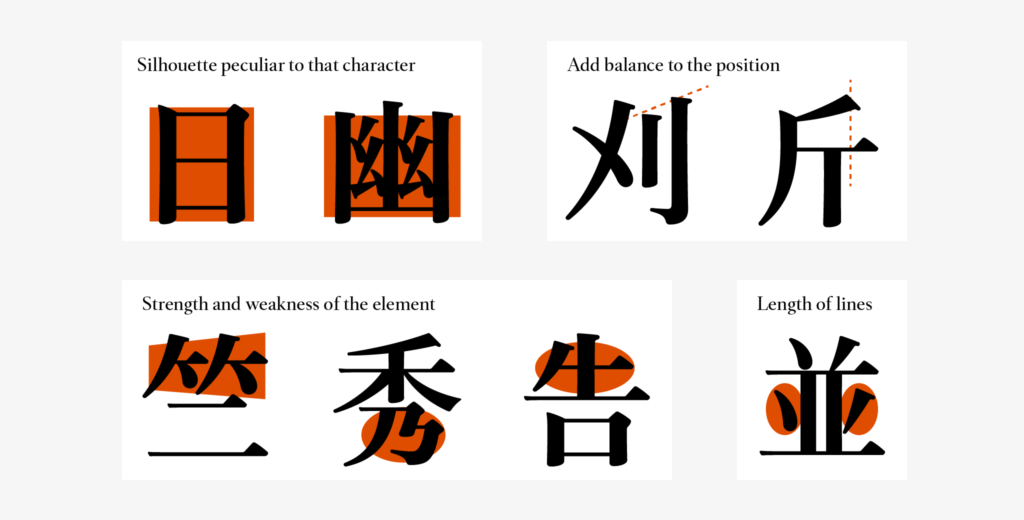
There is no correct answer in the method of creation, and the above examples do not always apply to all kanji characters. At the time of creation, the peculiarity to a certain kanji can be lost due to being too conscious of the degree of the inside space between strokes, and characters that are too small appeared at the time of adjustment as a result of overlooking the kanji as a whole. Balancing between avoiding excessive structure and tightening was also very difficult.